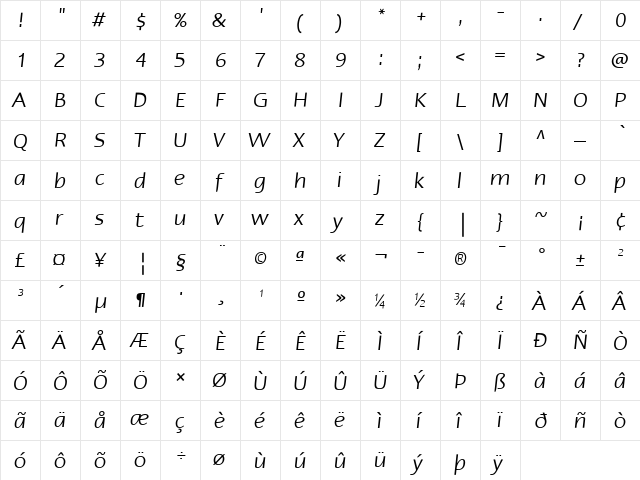
LTErgo Italic
Design Context for LTErgo Typeface
LTErgo takes a measured approach to typography — its balanced proportions and neutral character make it a reliable workhorse for both digital and print work. The dynamic lean of this cut emphasises speed and emphasis in any layout.